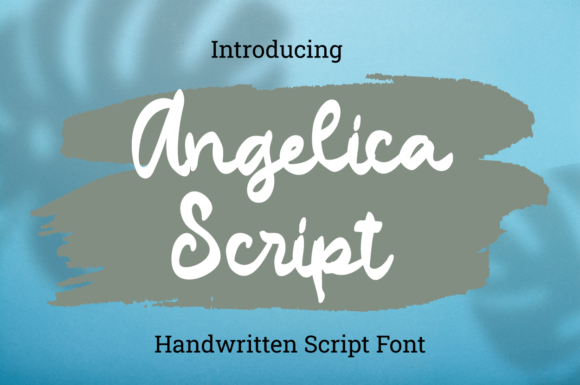
The Delicate Touch of Angelica Script Font
Imagine yourself sitting in a quiet café, surrounded by the soft hum of coffee machines and the gentle chatter of strangers. You’re working on a new design project, and as you scribble down ideas in a notebook, you feel the creative juices flowing. The words start to take shape, and you can almost see the final product in your mind’s eye. This is the moment when a beautiful font like Angelica Script Font comes to mind.
Angelica Script Font is a delicate and sweet handwritten font that features well-balanced and neat characters. It’s perfect for adding a touch of elegance to your projects, whether it’s a wedding invitation, a children’s book, or a blog post. With its versatility and charm, Angelica Script Font is a valuable asset for designers who want to add a personal touch to their creations.
Whether you’re a seasoned designer or a beginner, Angelica Script Font is sure to inspire you to create something truly special. So why not give it a try and see the magic it can bring to your projects?
Angelica Script Font Key Features
- Font Family: Angelica Script, a beautiful and elegant script font.
- Unique Characteristics: Angelica Script features intricate, hand-drawn letterforms with subtle flair and movement, giving it a distinctive, high-end feel.
Angelica Script Font Review
I recently had the chance to work with Angelica Script Font, and I must say, it’s a unique and beautiful addition to any design project. ✨ One of the things that stands out to me is the elegant and sophisticated feel of the font, making it perfect for high-end branding and design work.
- The flowing script style is reminiscent of classic calligraphy, adding a touch of sophistication to any design.
- The font is highly legible, even at smaller font sizes, making it suitable for a wide range of applications.
However, I did encounter a few limitations. ⚠️ One of the main issues is the font’s limited character set, which may cause issues when working with languages that require a wider range of characters.
- The font’s complexity may also lead to slower rendering times in certain applications.
- The font’s script style can be overwhelming if used in large blocks of text, so be mindful of text length and formatting.
Overall, I’m impressed with Angelica Script Font’s unique style and legibility. While it may have some limitations, it’s a great choice for designers looking to add a touch of elegance to their work.
Tip: Use Angelica Script for headings and titles to add a touch of elegance to your design.
Tip: Experiment with layer styles and effects to enhance the beauty of Angelica Script.
Tip: Use Angelica Script for presentation titles and headings to make a lasting impression.
Angelica Script is perfect for:
Alternatives to Angelica Script Font
Carolyna Pro is a beautiful, elegant script font that is perfect for creating high-end designs, luxury brands, and special occasions. It has a classic feel with a modern twist, making it a great choice for designers who want to add sophistication to their work.
Compared to Angelica Script Font, Carolyna Pro has a more refined and polished look, making it ideal for corporate and high-end branding projects. While Angelica Script Font has a more playful and whimsical feel, Carolyna Pro is better suited for serious and professional designs.